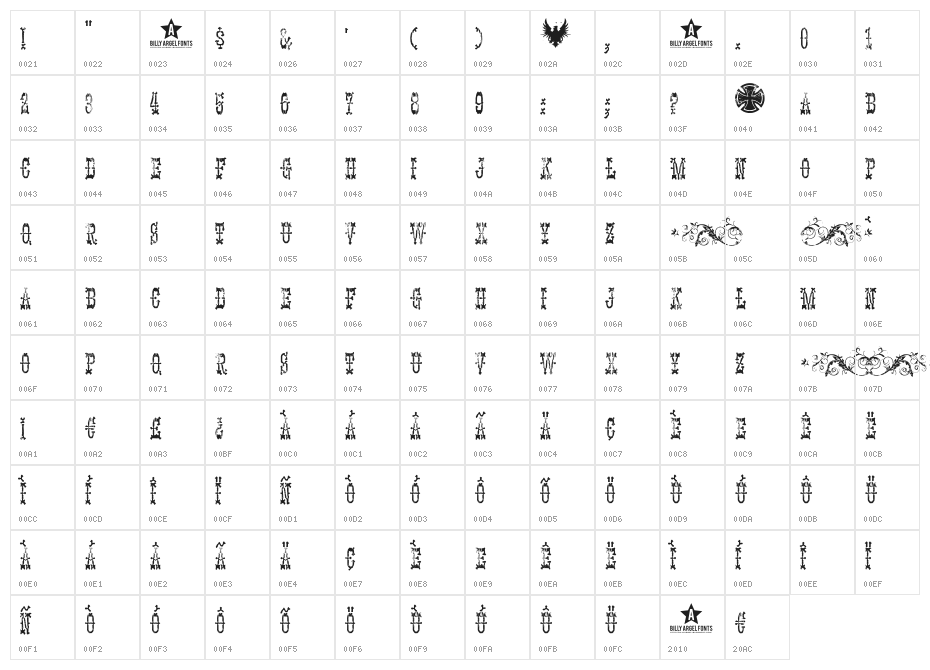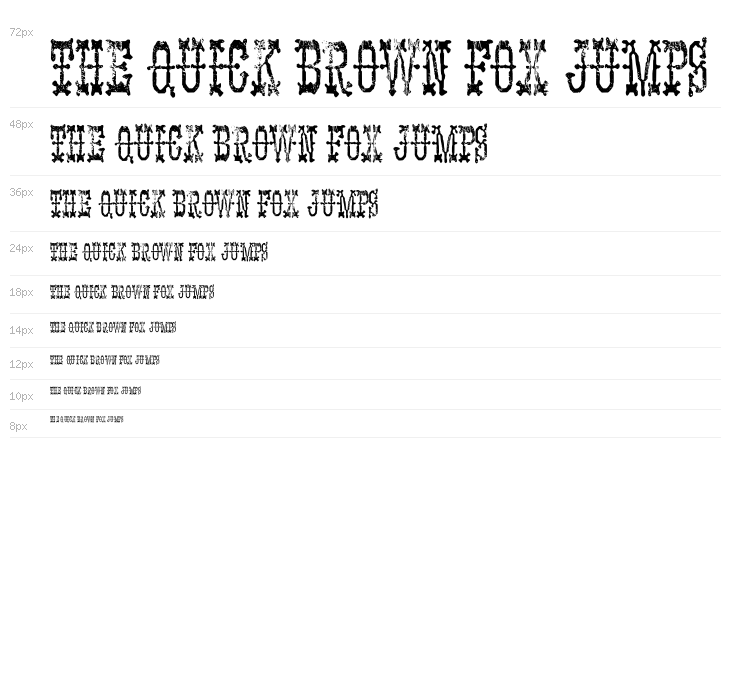
PANHEAD Font
PANHEAD Description
This font features a rugged, distressed style with a bold and impactful presence. Each character is designed with a textured, grunge effect, giving it a worn and weathered look. The uppercase and lowercase letters maintain a consistent design, with jagged edges and irregularities that add to its unique charm. Numbers and special characters follow the same aesthetic, ensuring a cohesive appearance across all text. This font is ideal for projects that require a bold statement or a vintage, industrial feel.
| Overall Style | Vintage, Grunge |
| Proposed Projects | Perfect for album covers, posters, branding for edgy or vintage-themed products, and any design requiring a strong, impactful typeface. |